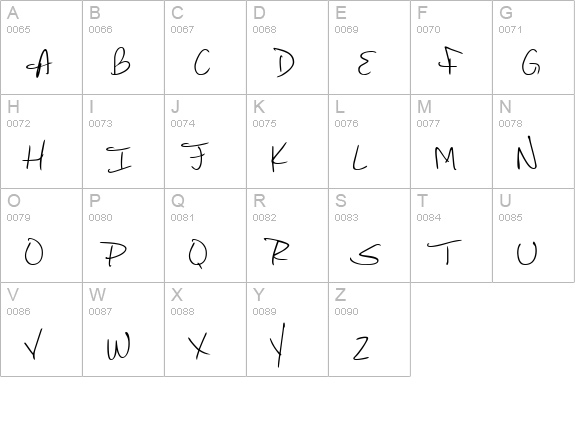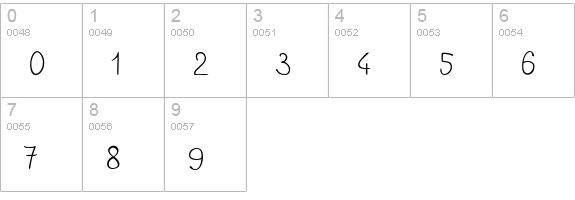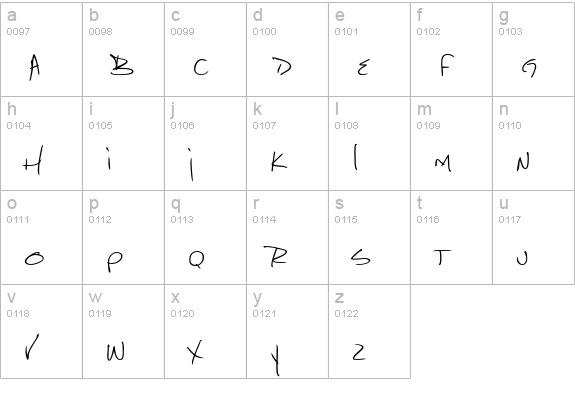
Marcello Handwriting font is a charming and elegant typeface that exudes a sense of sophistication and creativity. With its flowing lines and distinctive style, Marcello Handwriting adds a personal touch to any project, whether it's invitations, posters, or branding materials. This unique font captures the essence of handwriting with a modern twist, making it perfect for adding a touch of personality to your designs. The best part? Marcello Handwriting font is completely free to download at FontsMarket.com. You can easily access this delightful font and enhance your projects with its artistic flair without any cost. Don't miss out on the opportunity to elevate your designs with Marcello Handwriting font, available for free download now!